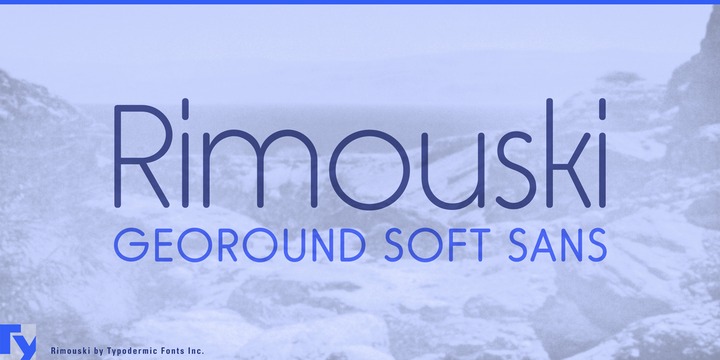
Rimouski Font
Rimouski Font is perfect for Canadian tourism marketing, outdoor adventure brands, winter sports campaigns, natural product packaging, eco-friendly companies, wilderness lodges, maple syrup producers, northern lifestyle magazines, outdoor gear, and authentic Canadian cultural projects.
What makes Rimouski Font exciting is its northern character that embodies the pristine beauty of Canadian wilderness and maritime heritage through naturally crafted letterforms. This distinctive typeface combines rugged durability with refined elegance, creating a personality that communicates authenticity, natural beauty, and genuine Canadian spirit. The font's Quebec-inspired character and maritime appeal make it perfect for brands seeking to evoke the magnificent landscapes of the St. Lawrence River and the sophisticated charm of French-Canadian culture.
The Rimouski Font family includes Regular, Bold, Light, Medium, Nordic, Maritime, Condensed, and Natural variants. Each weight maintains the font's Canadian character while providing comprehensive typographic flexibility for outdoor brand identity systems and natural design applications across diverse northern platforms.
Whether you're developing outdoor brand identities, creating Canadian tourism materials, designing natural product packaging, or building wilderness adventure campaigns, Rimouski Font delivers unmatched northern appeal and Canadian authenticity. Its natural presence makes it perfect for outdoor outfitters, Canadian tourism boards, eco-friendly brands, and northern lifestyle companies seeking authentic Canadian representation.
The font's sturdy proportions and natural details create an inspiring reading experience that transports audiences to the pristine shores of the St. Lawrence River and majestic Canadian wilderness landscapes. Each letterform has been carefully crafted to preserve French-Canadian typographic tradition while maintaining excellent readability across modern outdoor applications.
This versatile typeface excels in natural environments, offering designers the authenticity needed for comprehensive Canadian brand communication strategies. The extensive character set includes northern alternates, maritime ligatures, and natural symbols for outdoor market positioning and Canadian brand storytelling.